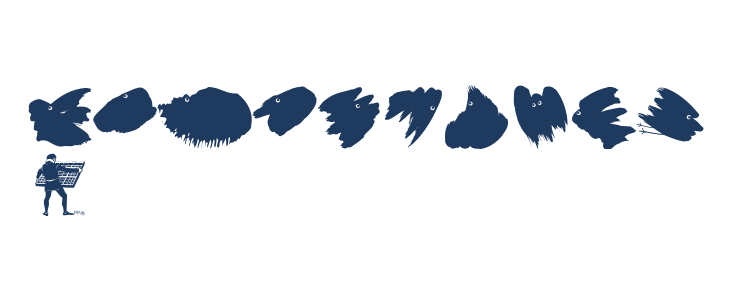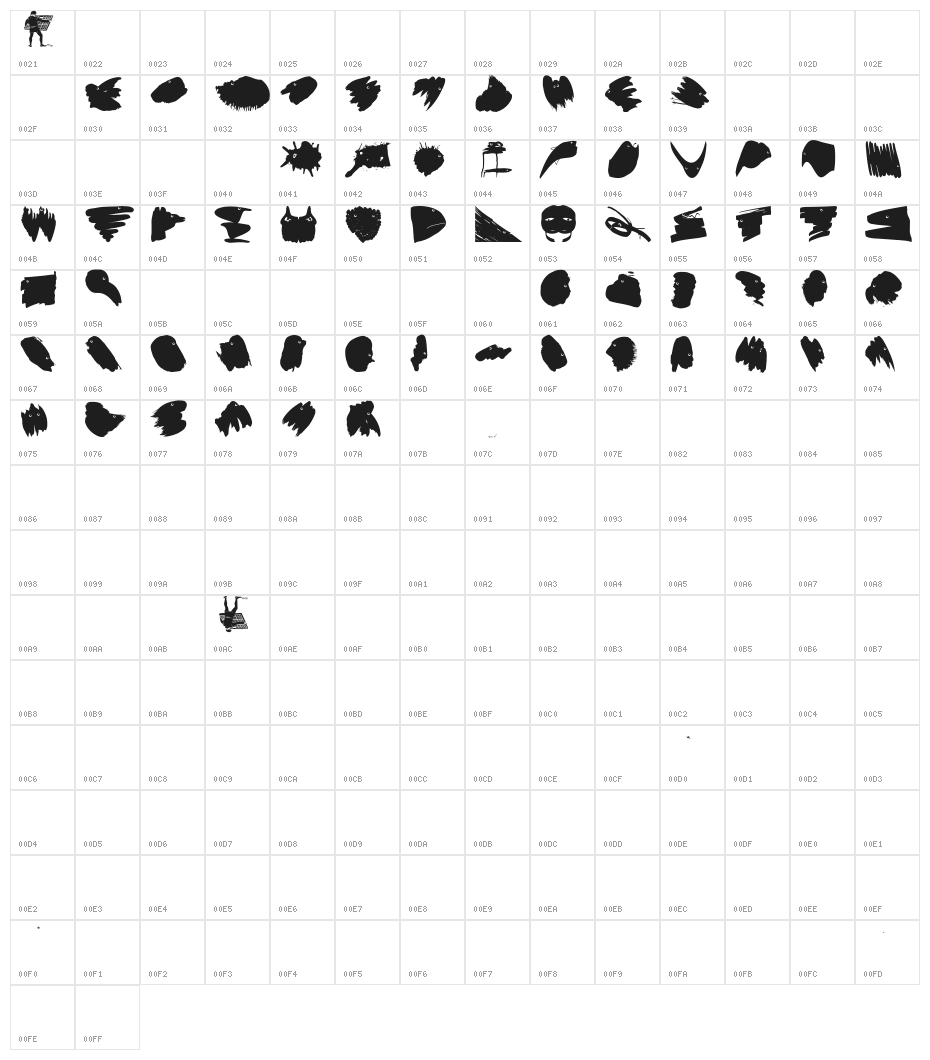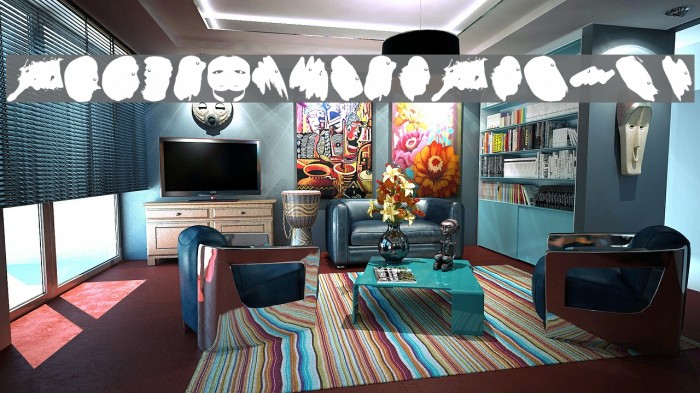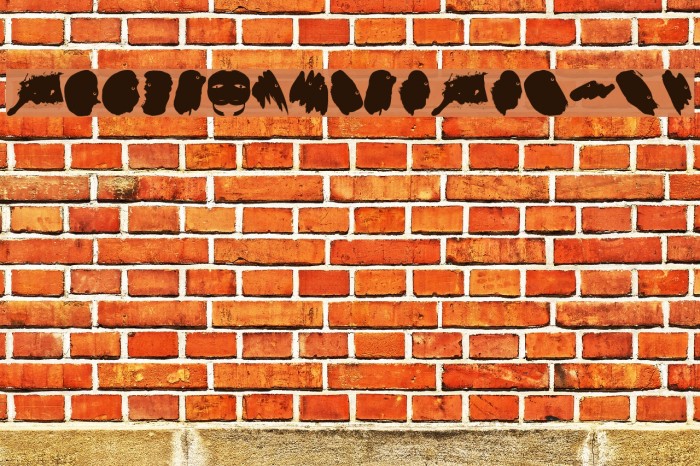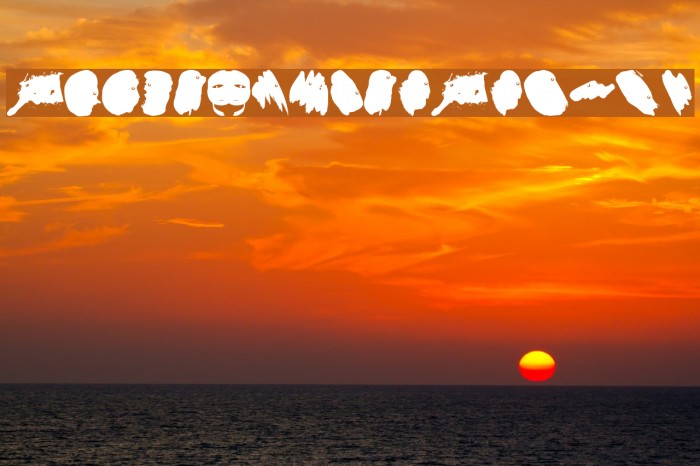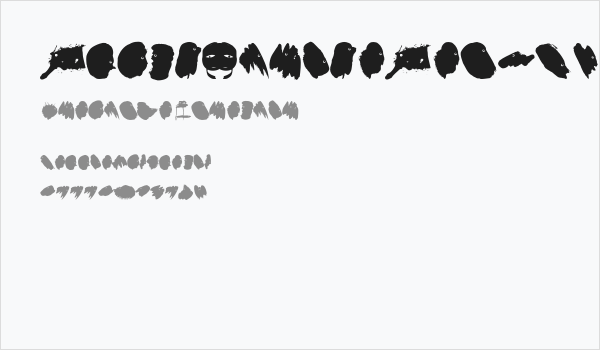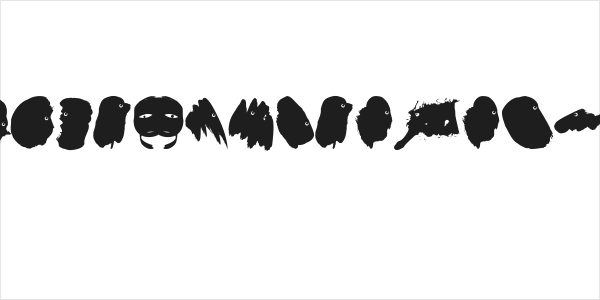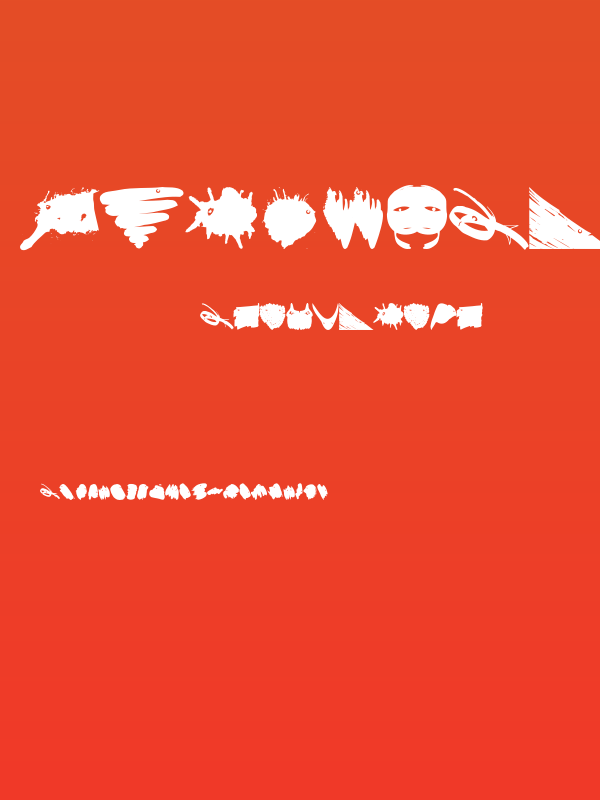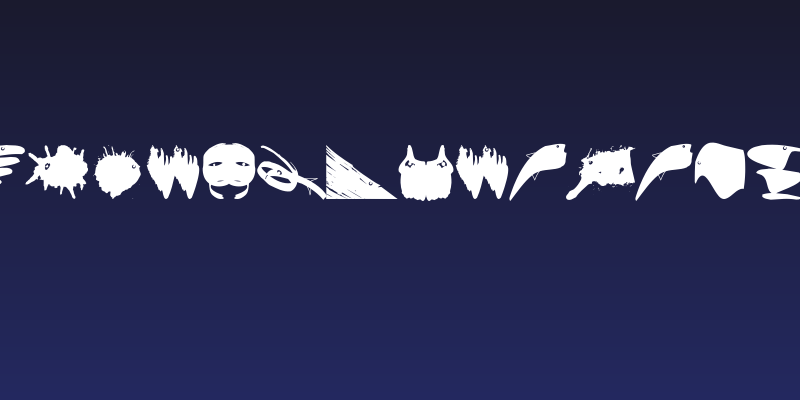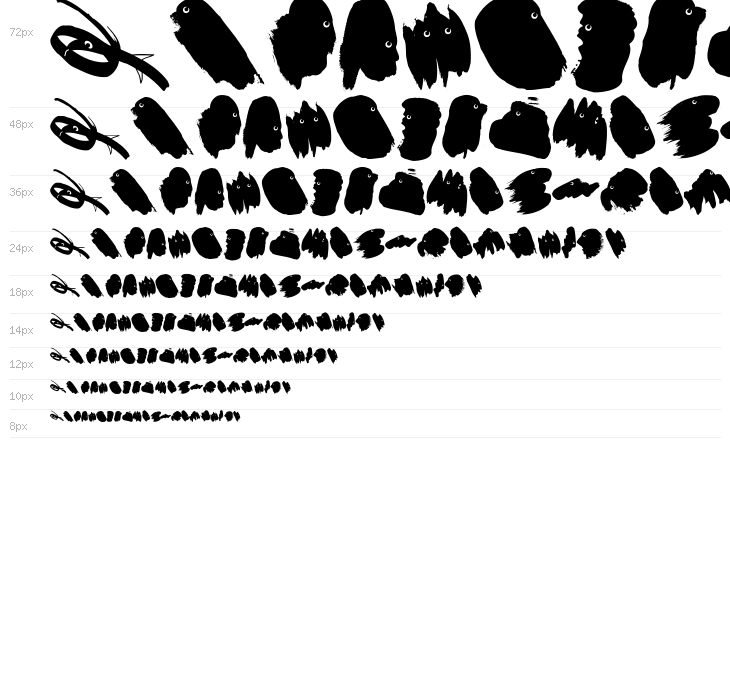
BlackStrokeBeings Font
BlackStrokeBeings Description
This font features a highly artistic and abstract design, with each character resembling a bold, black brushstroke. The strokes are irregular and dynamic, giving the font a sense of movement and energy. The characters are not easily distinguishable as traditional letters, making it more of an artistic expression than a practical typeface. The overall appearance is chaotic yet intriguing, capturing attention with its unique style. This font is more suited for artistic projects where legibility is not the primary concern.
| Overall Style | Abstract, Artistic |
| Use Case | Artistic displays, Creative branding |
| Proposed Projects | Ideal for art projects, abstract posters, experimental designs, and creative branding where a unique visual impact is desired. |